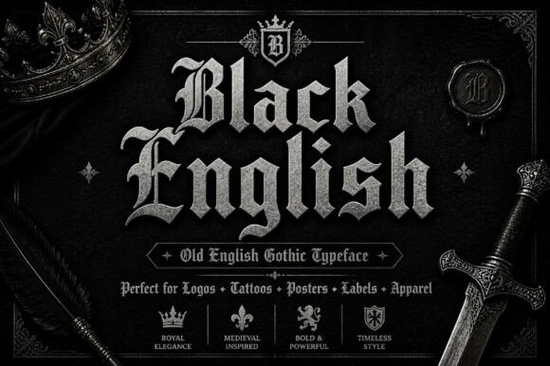
The Black English Font is a blackletter typeface that blends Old English calligraphy with sharp Gothic strokes. It has a dramatic, historical look that works well for medieval-themed designs, vintage branding, and bold creative projects. If you've been searching for a classic Gothic font with real character, this one is worth a closer look. You can find Black English on Creative Fabrica along with many other blackletter options.
What Makes Black English Different from Other Gothic Fonts?
There are plenty of blackletter fonts available, but not all of them hit the right balance between readability and style. Some lean too far into ornate territory and become hard to read at smaller sizes. Others look flat and lose the calligraphic feel that makes Gothic typography so appealing.
Black English sits in a sweet spot. The strokes are sharp and defined, but they still carry that flowing, hand-lettered quality you'd expect from traditional calligraphy. It gives text a sense of weight and presence without feeling cluttered. Whether you use it for a single word or a short headline, it holds up well across different sizes.
What Can You Use This Font For?
This is one of those fonts that works across a surprisingly wide range of projects. Here are some practical uses:
- Logos and branding – especially for barbershops, tattoo studios, breweries, or any brand that wants a vintage or edgy identity
- Posters and flyers – concert posters, event announcements, or anything that needs a bold headline
- Album covers – metal, rock, hip-hop, and alternative genres often use blackletter typography
- T-shirt designs – print-on-demand sellers can pair this font with simple graphics for a strong visual impact
- Packaging design – works well for craft products, specialty foods, or anything with a handcrafted or heritage feel
- Tattoo-inspired artwork – the calligraphic quality of this font translates naturally into tattoo flash and illustration
- Headlines and titles – magazine covers, blog headers, or social media graphics that need to grab attention fast
Is Black English a Good Fit for Print-on-Demand Sellers?
Short answer: yes, if your audience appreciates bold, vintage-style typography. Print-on-demand platforms like Redbubble, Merch by Amazon, and TeePublic reward designs that stand out in thumbnail views. A font like Black English has strong silhouettes and high contrast, which means it reads well even at small sizes on product listings.
That said, keep your audience in mind. This font works best for niches like:
- Gothic and dark aesthetic
- Motorcycle and car culture
- Tattoo art
- Medieval and fantasy themes
- Vintage and retro branding
- Music-related merchandise
If your designs target one of these markets, adding a blackletter typeface to your toolkit is a smart move.
Does It Work for Small Business Branding?
For small businesses that want to project a specific personality, typography matters a lot. A blackletter font like Black English communicates tradition, craftsmanship, and a bit of rebellion. It's a strong choice for businesses that want their visual identity to feel rooted in history but still bold enough to compete in a crowded market.
Think about businesses like craft breweries, barbershops, specialty coffee roasters, or independent record labels. These brands often rely on strong typographic choices to tell their story at a glance. Black English fits naturally into that world.
Just be mindful of legibility. Use it for headlines, logos, and display text rather than body copy. Pair it with a clean sans-serif or simple serif font for longer text to keep your designs balanced and easy to read.
Tips for Getting the Best Results
- Use it at larger sizes. Blackletter fonts show their detail best when they have room to breathe. Small sizes can make the strokes merge together.
- Pair it with a simple secondary font. A clean sans-serif like Montserrat or Open Sans balances the complexity of a Gothic typeface.
- Watch your spacing. Blackletter fonts often need adjusted letter-spacing depending on the application. Test your text at different sizes before finalizing a design.
- Consider the context. This font carries strong cultural associations. Make sure the tone matches your project.
Quick Checklist Before You Start Designing
- ✅ Know your project type logo, poster, t-shirt, packaging, etc.
- ✅ Choose a clean secondary font for body text or supporting copy
- ✅ Test the font at multiple sizes to check readability